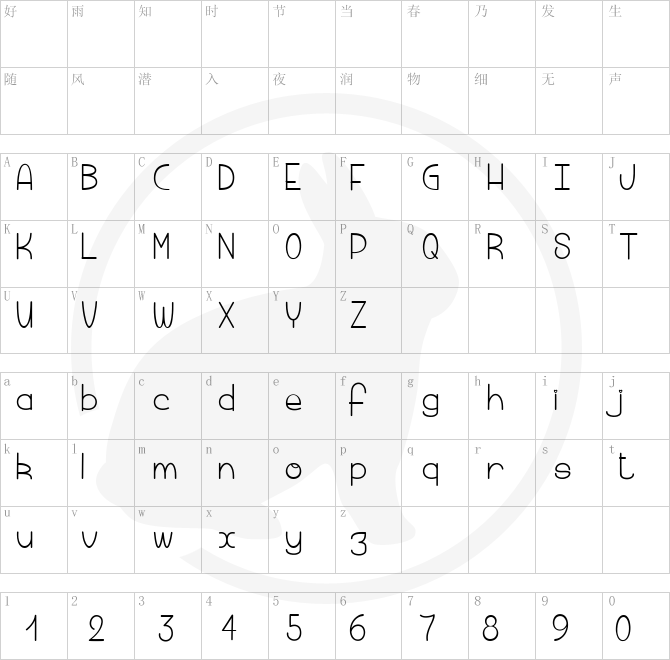
- Font Name:Macaroni & Cheese
Macaroni-Cheese-.ttf is a very beautiful artistic font, Macaroni-Cheese-.ttf is widely used in the design and printing of various books and pictures,Macaroni-Cheese-.ttf has a strong visual impact,Macaroni-Cheese-.ttf is a commonly used font in newspapers, magazines and books, and is used in posters, e-commerce Poster design, store design, logo design, font design and other fields.Macaroni-Cheese-.